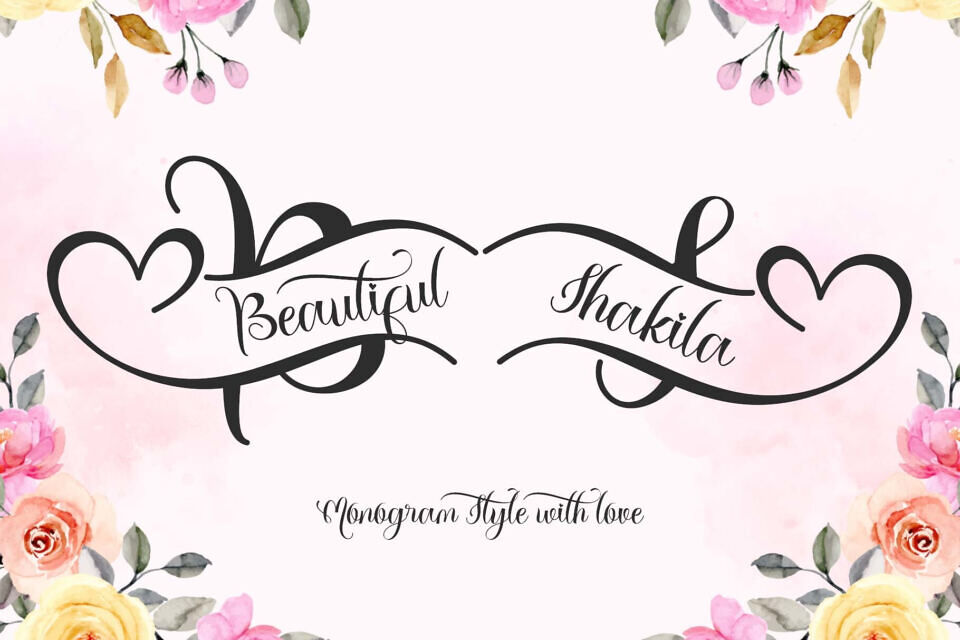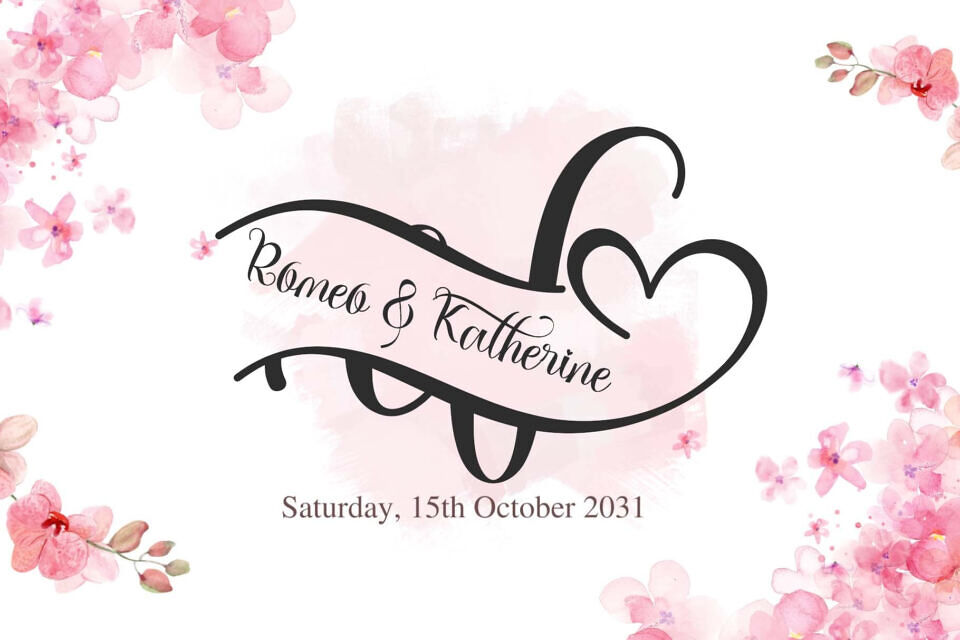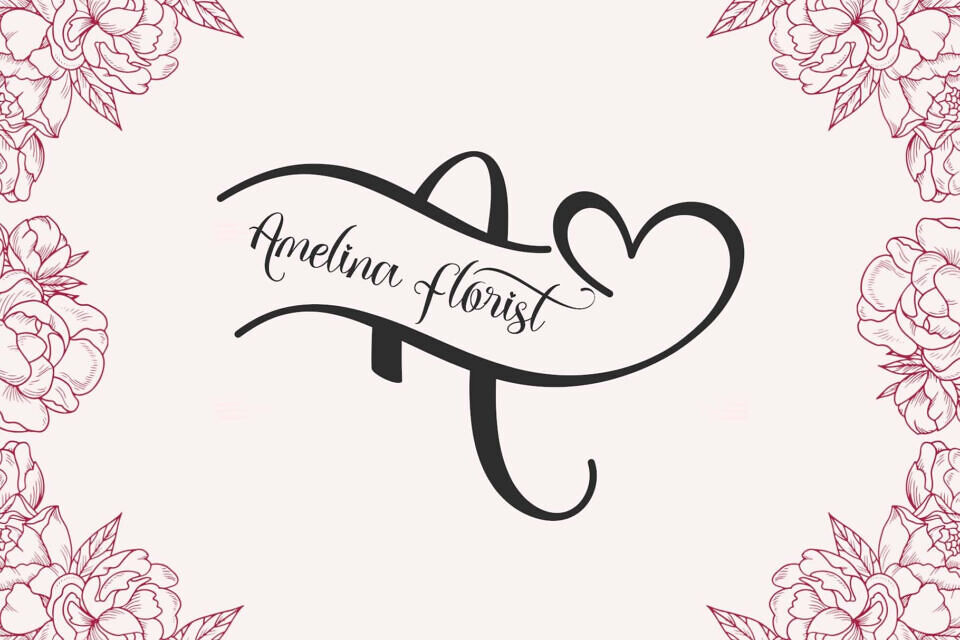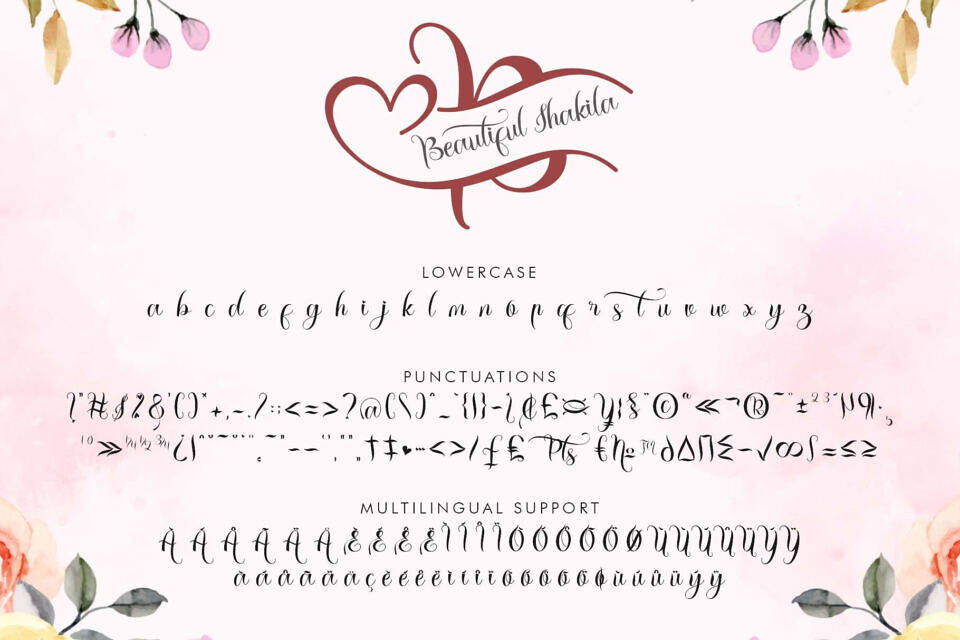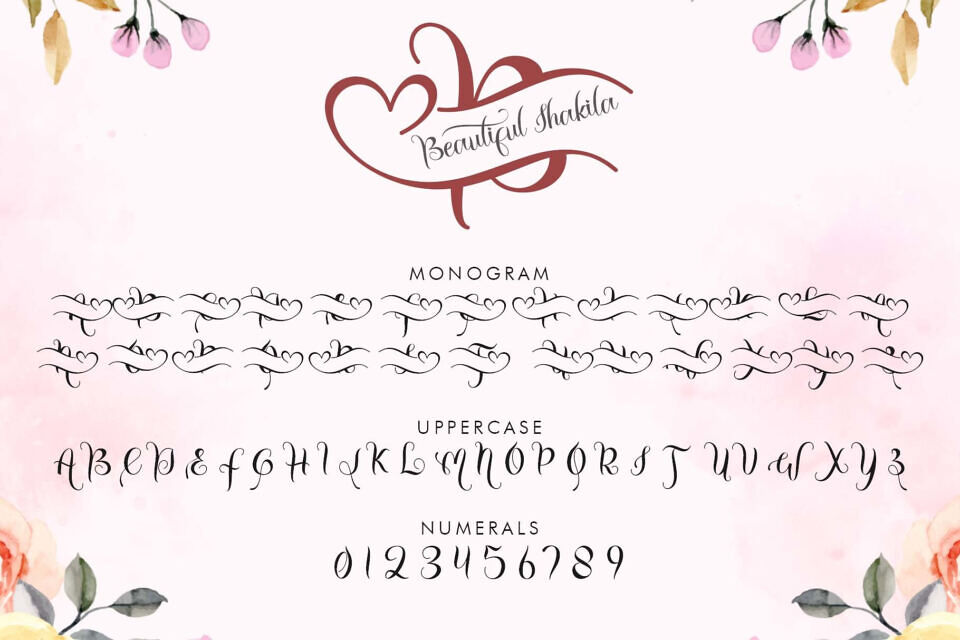
Beautiful Shakila is an elegant decorative script font crafted in a refined monogram style, perfect for designs that celebrate romance, sophistication, and timeless beauty.
Its graceful swashes, delicate strokes, and flowing lines create a harmonious balance of style and readability, making it ideal for wedding stationery, luxury branding, personal logos, and upscale invitations.
Beautiful Shakila includes a complete set of uppercase and lowercase letters, numerals, punctuation, and stunning heart-shaped monogram frames that allow endless customization possibilities. These monogram elements can be combined effortlessly to create personalized designs for initials, logos, and decorative titles.